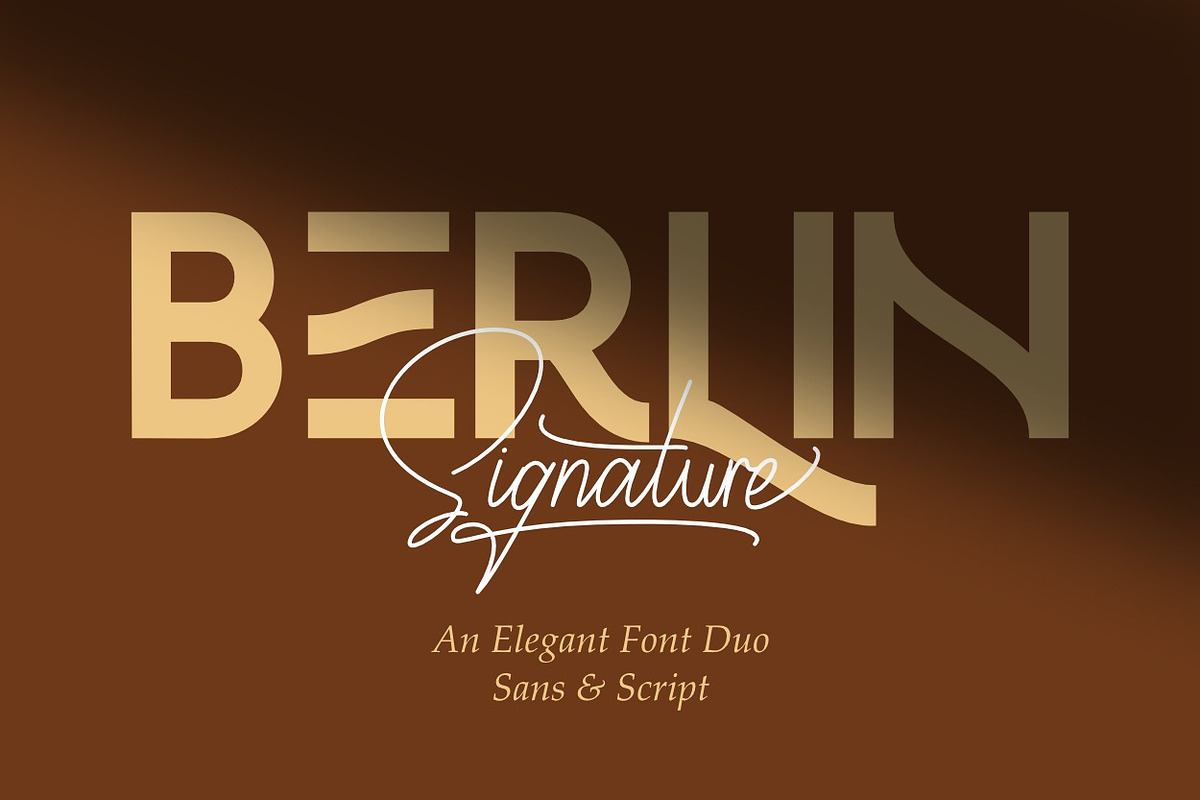
Berlin Sans Serif Font Bold Free Download is a clean, modern typeface with strong geometric structure and a timeless aesthetic. With its bold weight and minimalist design, this font is perfect for branding, headlines, posters, editorial layouts, tech presentations, and professional business graphics.
Designed for clarity and impact, Berlin Sans Serif Font Bold Free Download brings confidence and versatility to your projects. Its sleek lines and even spacing make it ideal for both digital and print use, delivering a crisp, upscale look that fits perfectly in contemporary design work.